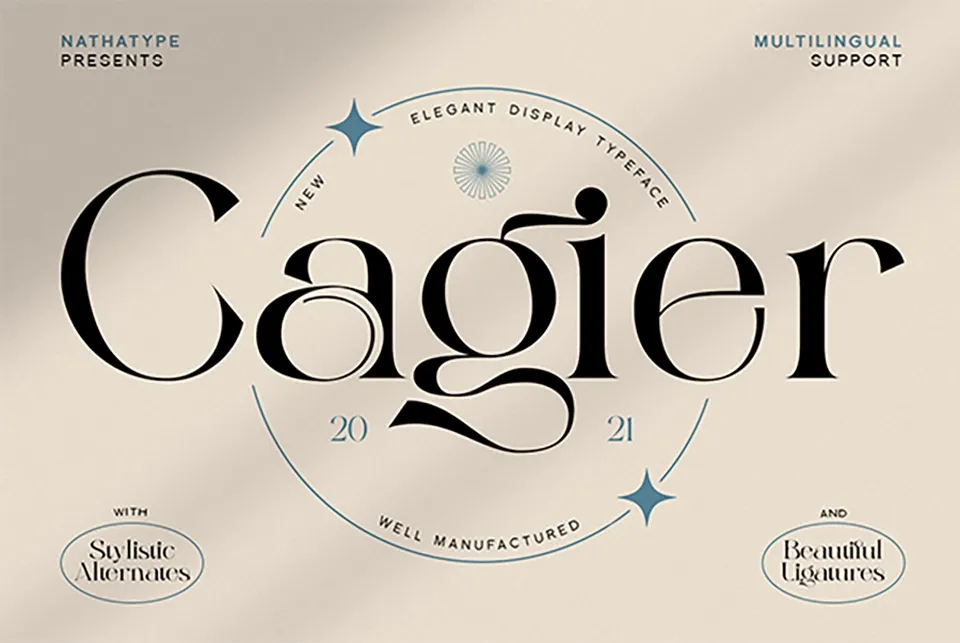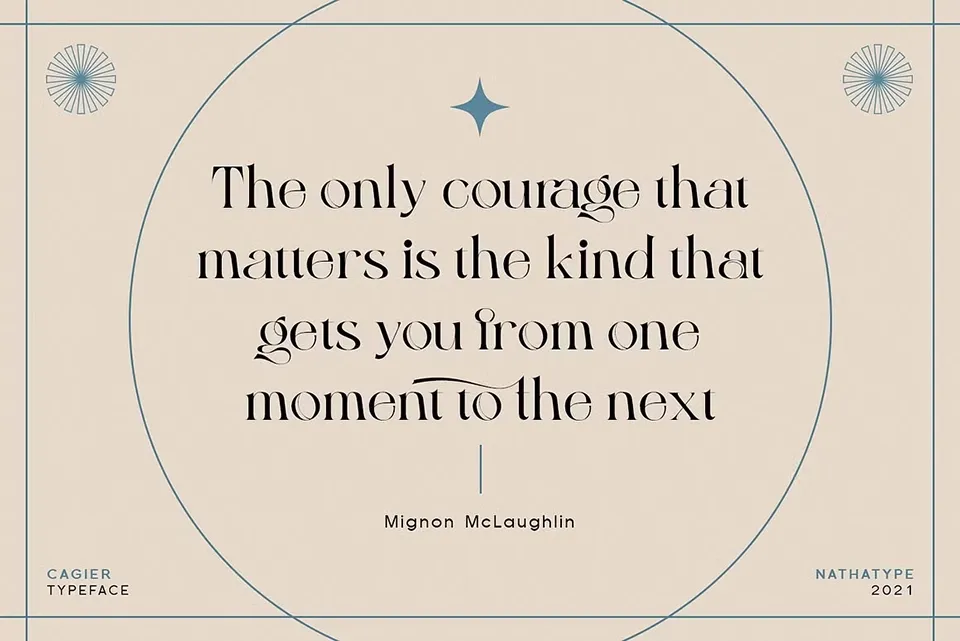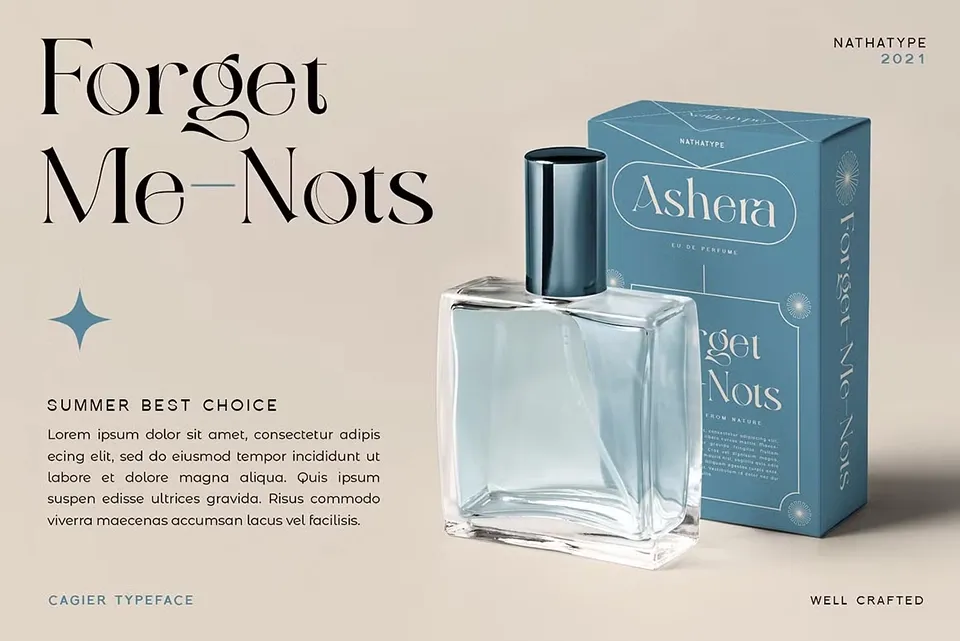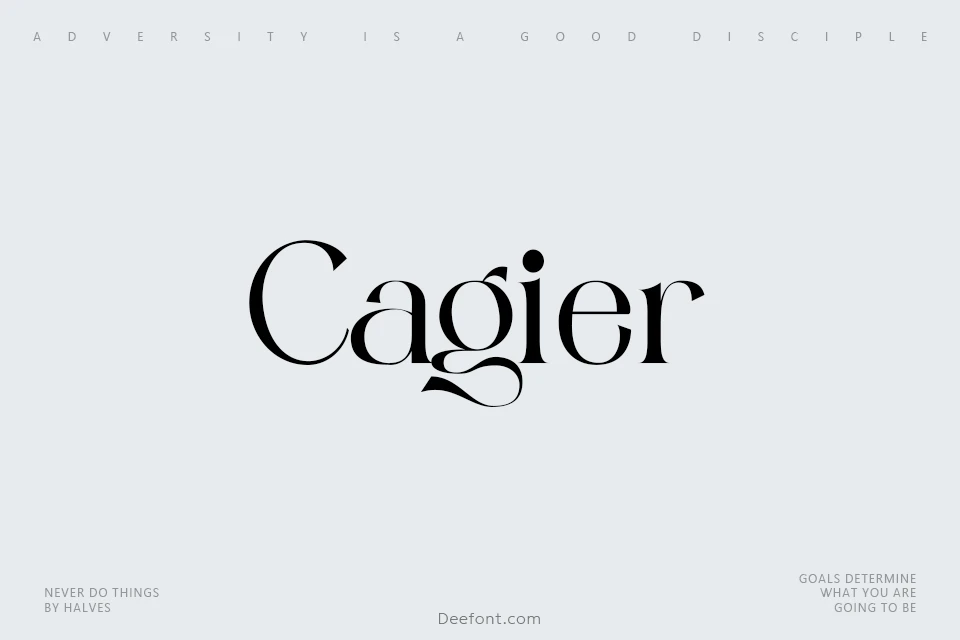
Cagier Serif Font
Cagier Serif Font is a luxurious, classy, and timeless display serif inspired by classic and vintage flair, combined with modern trends. Perfect for logos, headings, branding, magazines, album covers, books, movies, apparel, quotes, invitations, flyers, posters, greeting cards, product packaging, and more, Cagier Serif Font brings elegance and authenticity to any creative project.